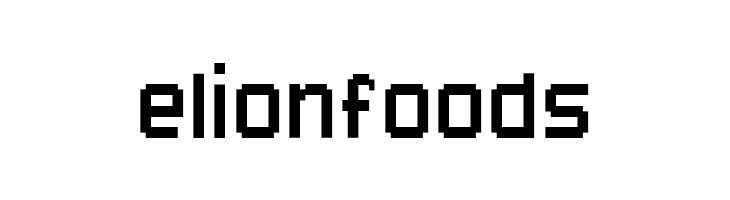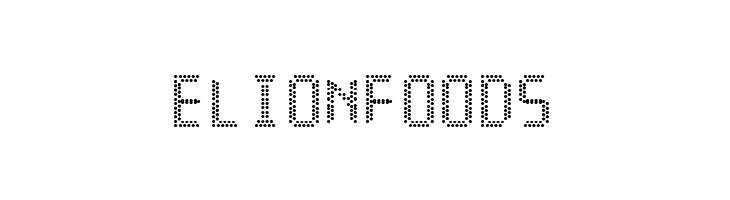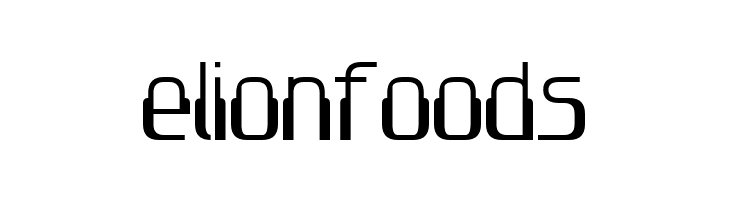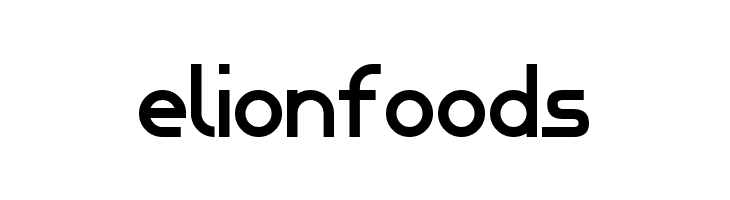
A playful, bold, hand-drawn font with a cartoonish style.
A pixelated font with a retro, digital aesthetic, ideal for tech-themed designs.
A dot matrix font with a digital, LED-inspired design.
A bold, textured slab serif font with a vintage collegiate style.
A geometric, block-like font with uniform stroke widths and a modern appearance.
Bold, geometric arrow and direction symbol set.
A modern, geometric font with clean lines and rounded corners.
A bold, modern sans-serif font with clean, geometric lines.